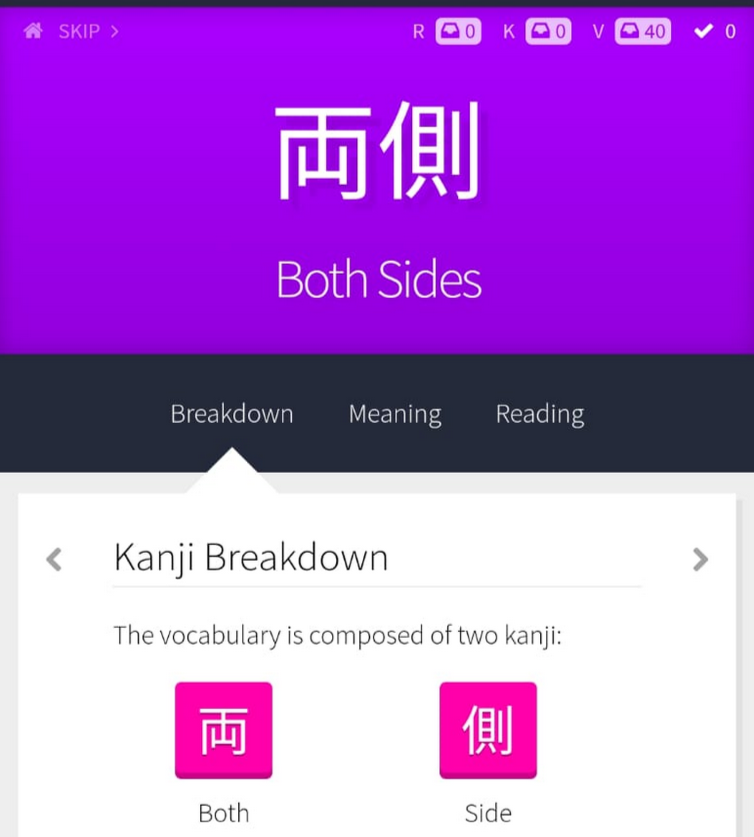
I’m mostly using WaniKani on my mobile device, so I’m more used to the font there. But when I occassionally switch to PC for reviews, it feels like a completely different font, but only since I installed the Japanese Keyboard IME for Windows 10! The PC browser font feels more bold and horizontally strechted compared to the smartphone browser font (and the PC font before that installation) now. Does the IME keyboard somehow reconfigure displayed Japanese fonts in my browser? To assure myself that I’m not going crazy, I made two pics from both devices and cropped them:
DO YOU SEE THE DIFFERENCES? (whispers) do you?
Sadly, I don’t have an image to compare to from before I installed the IME keyboard, so maybe the thing about the keyboard is just me. But the fonts are definitely not the same.
Am I going mad over a font change, feeling sympathy for the smartphone font and slowly developing deep hatred over the PC font, accussing it for any wrong answers I made in reviews?
You’re not going mad, but if your accuracy depends on text using the exact same font then you will likely have tons of issues down the road with recognition. Especially if you ever encounter fonts that emulate a handwritten style or actually encounter handwritten kanji because they aren’t going to look 100% like the fonts in your screenshots. I would suggest you use something like this to eliminate this crutch of needing one specific font to be accurate: